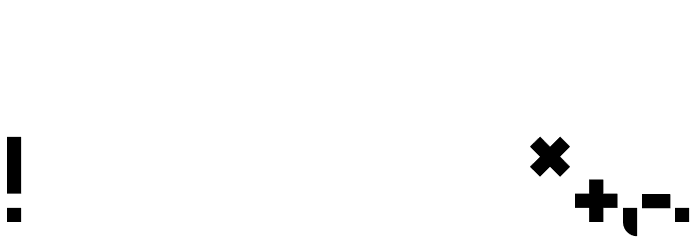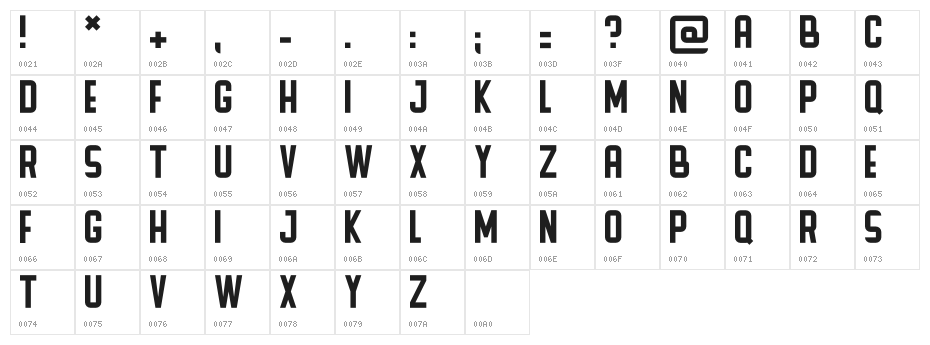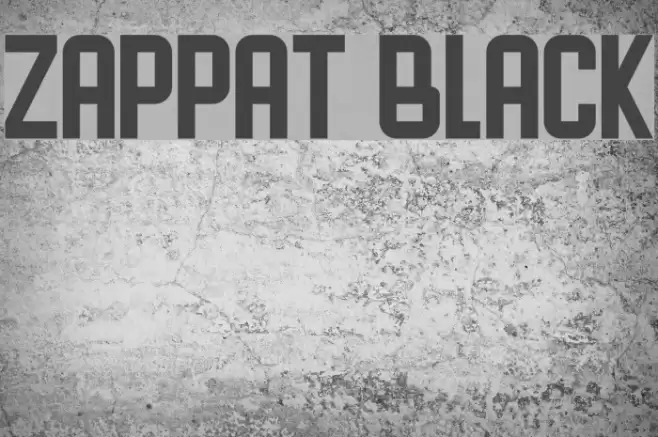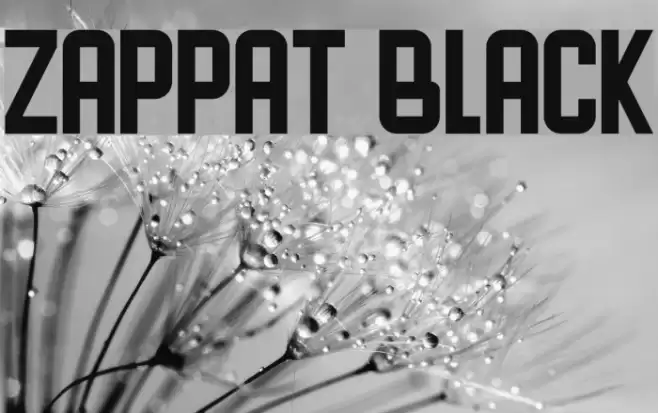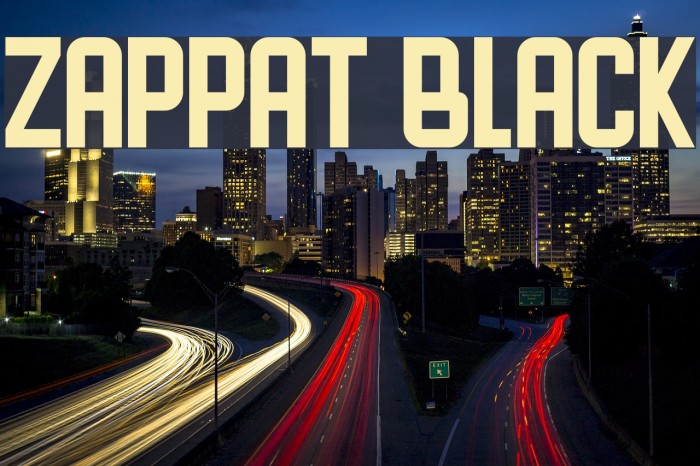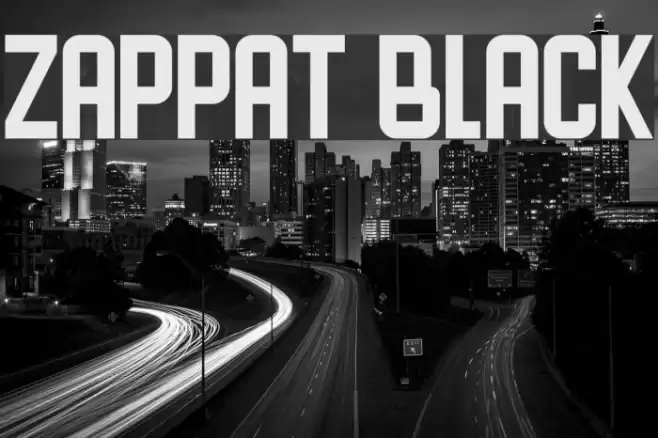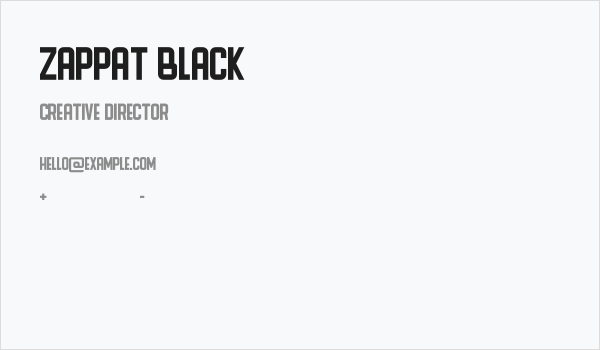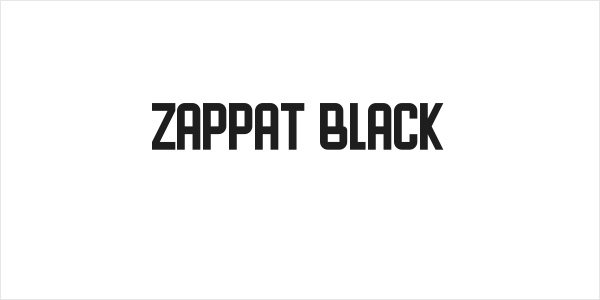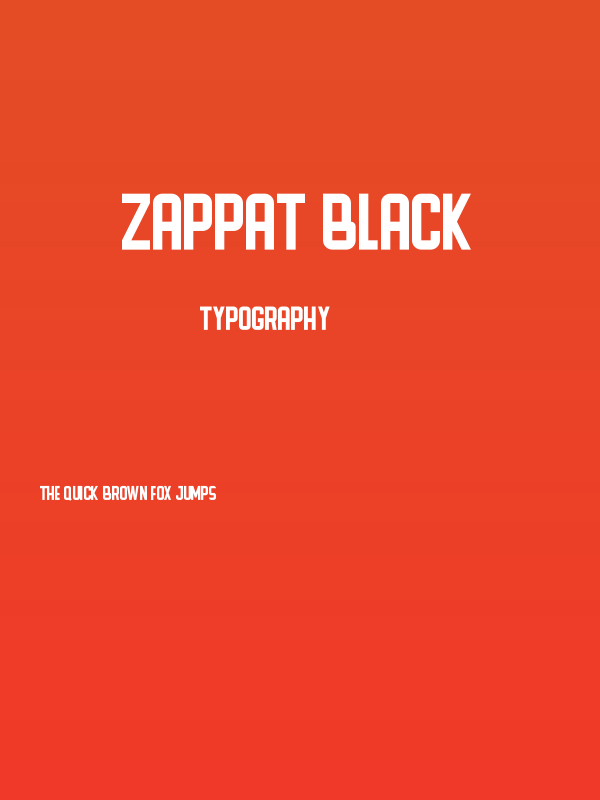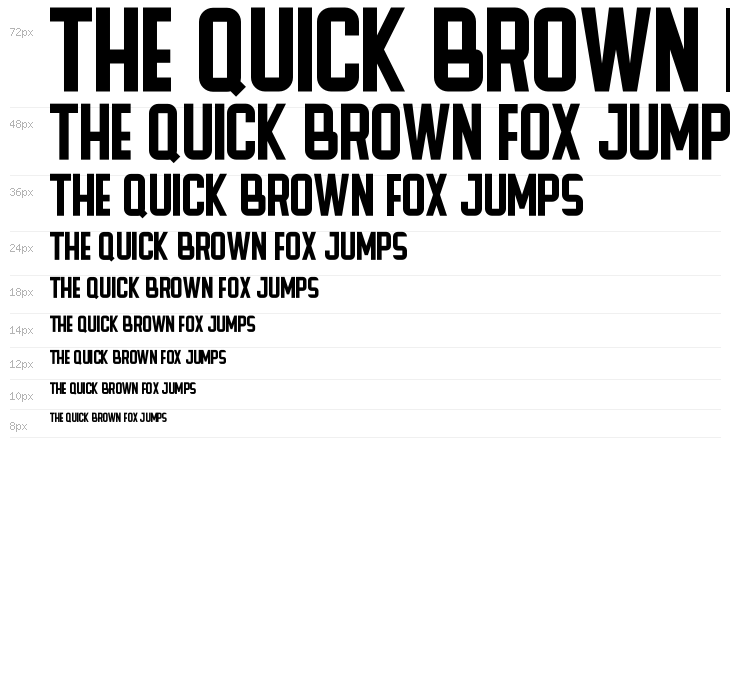
ZAPPAT Black Font
ZAPPAT Black Description
This font features bold, geometric letterforms with a strong, impactful presence. The uppercase letters are uniform in height, with consistent stroke widths that convey a sense of stability and modernity. The design is clean and minimalistic, making it suitable for contemporary applications. The characters have a slightly condensed appearance, enhancing their boldness and making them ideal for attention-grabbing headlines. The special characters maintain the same bold style, ensuring consistency across all glyphs.
| Proposed Projects | Ideal for branding, posters, headlines, and any project requiring a strong visual impact. |